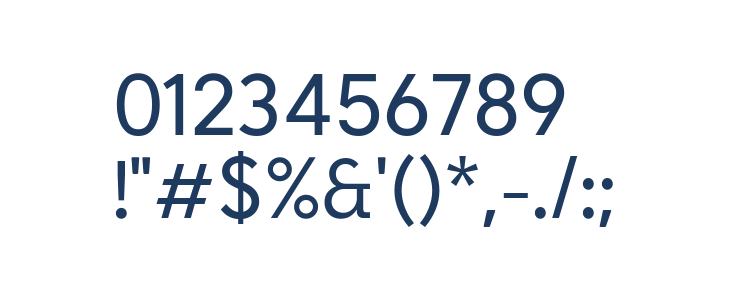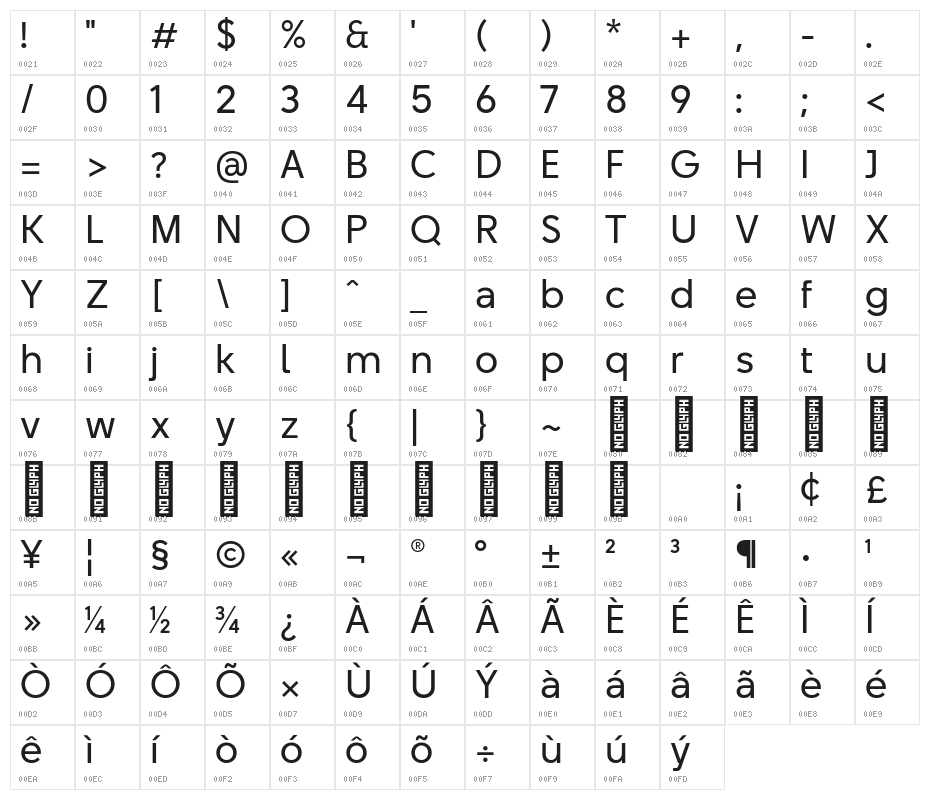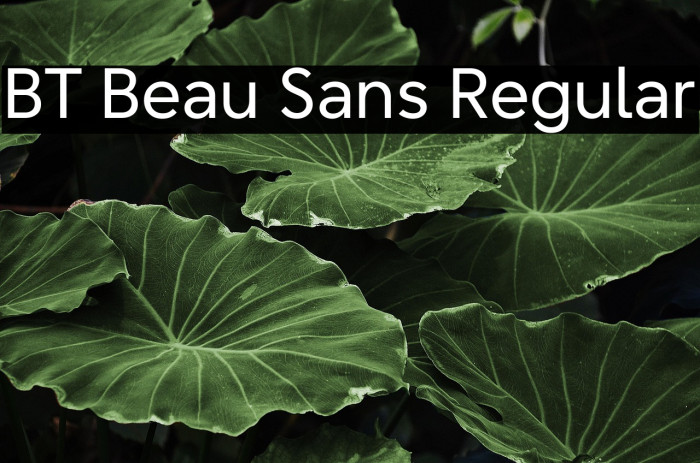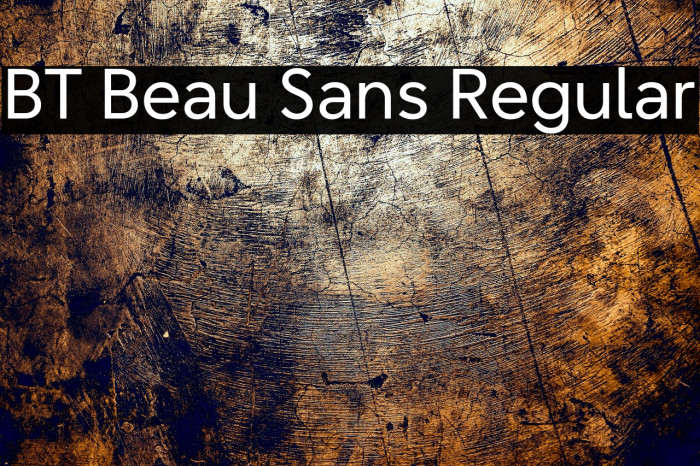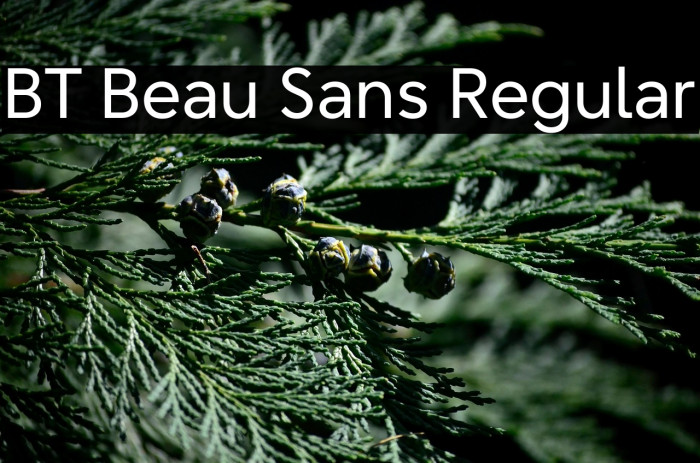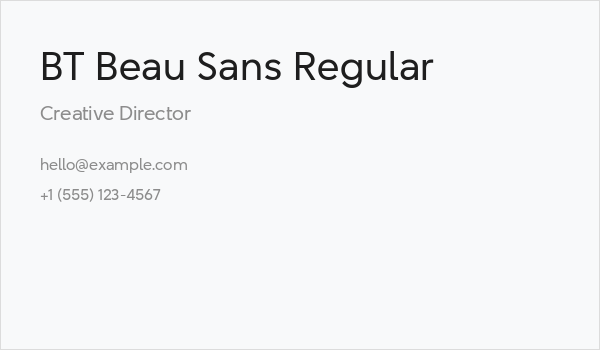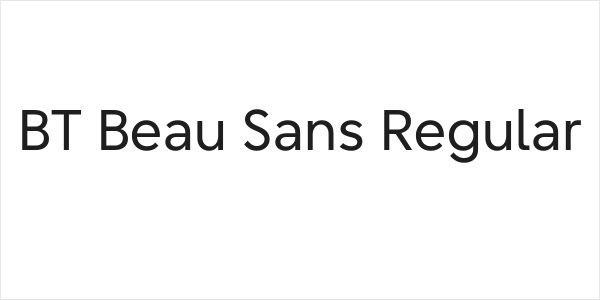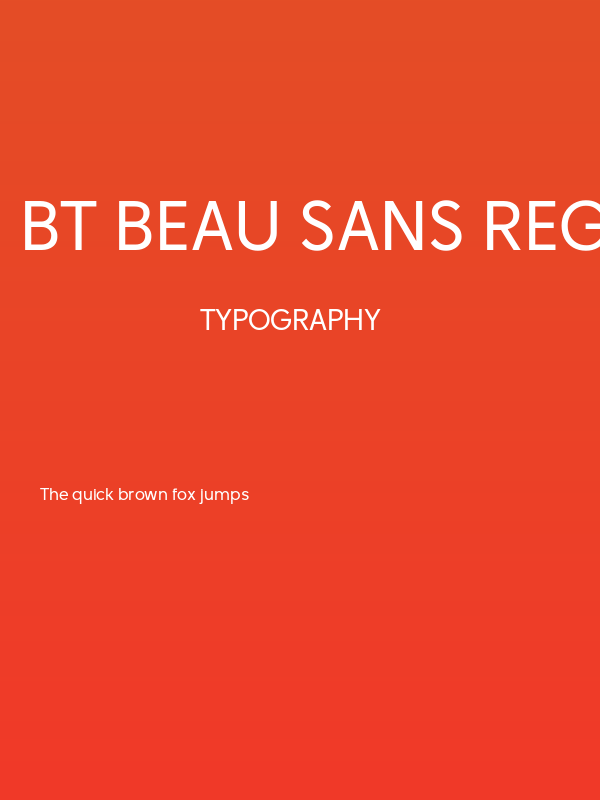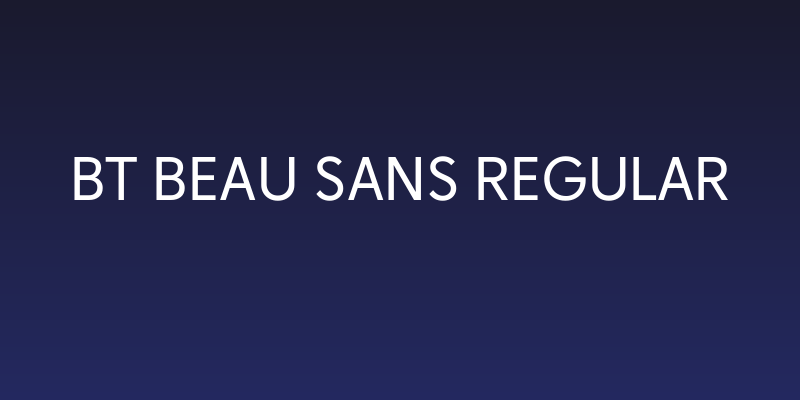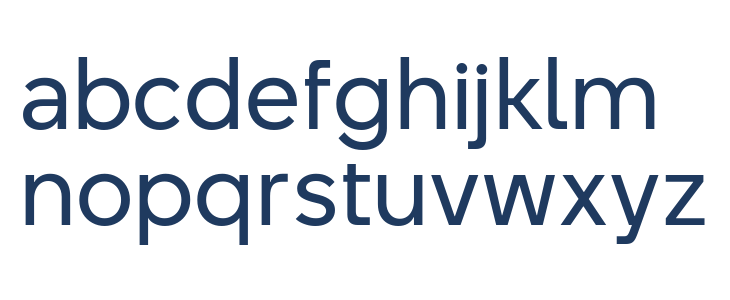
BT Beau Sans Regular Font
BT Beau Sans Regular Description
This font exhibits a clean and modern sans-serif style, characterized by its geometric shapes and balanced proportions. The letters are crafted with precision, offering a uniform appearance that enhances readability. The uppercase and lowercase letters are well-defined, with a consistent stroke width that provides a harmonious look. The numerals are clear and distinct, making them suitable for various applications. Special characters are included, maintaining the overall aesthetic of the font. Its simplicity and elegance make it versatile for both digital and print media.